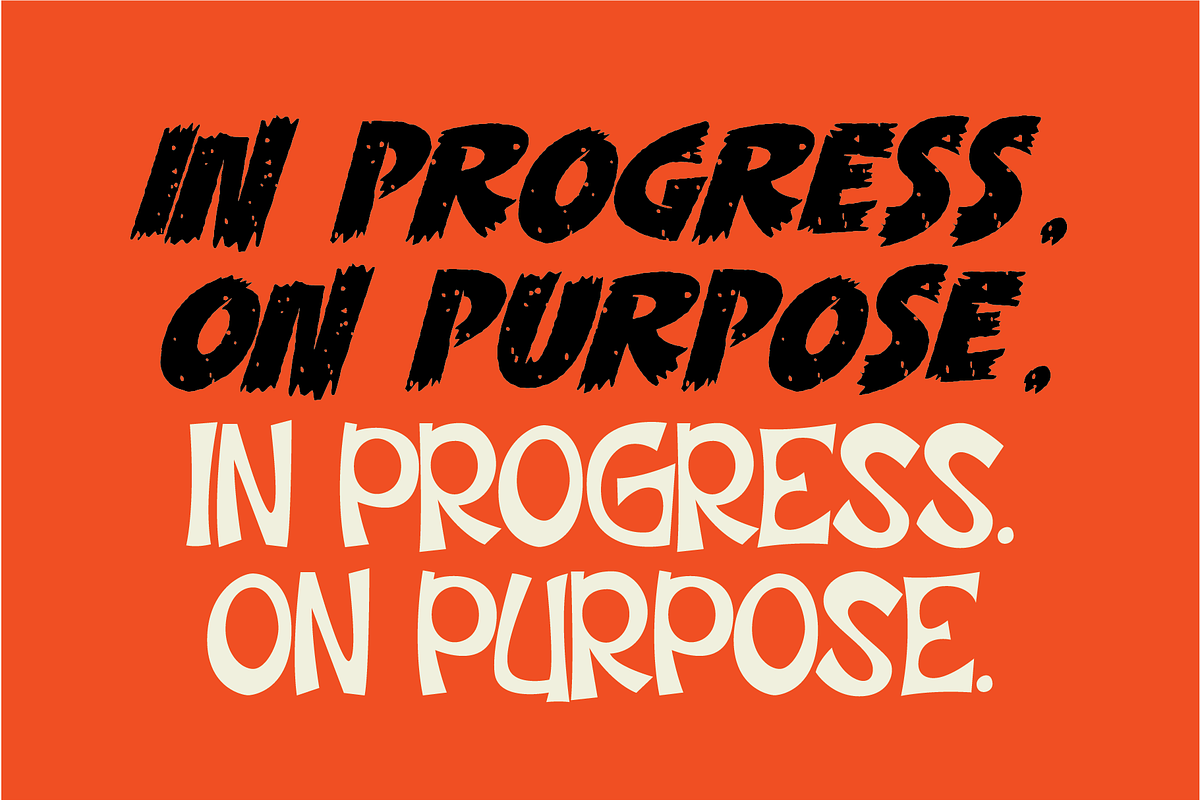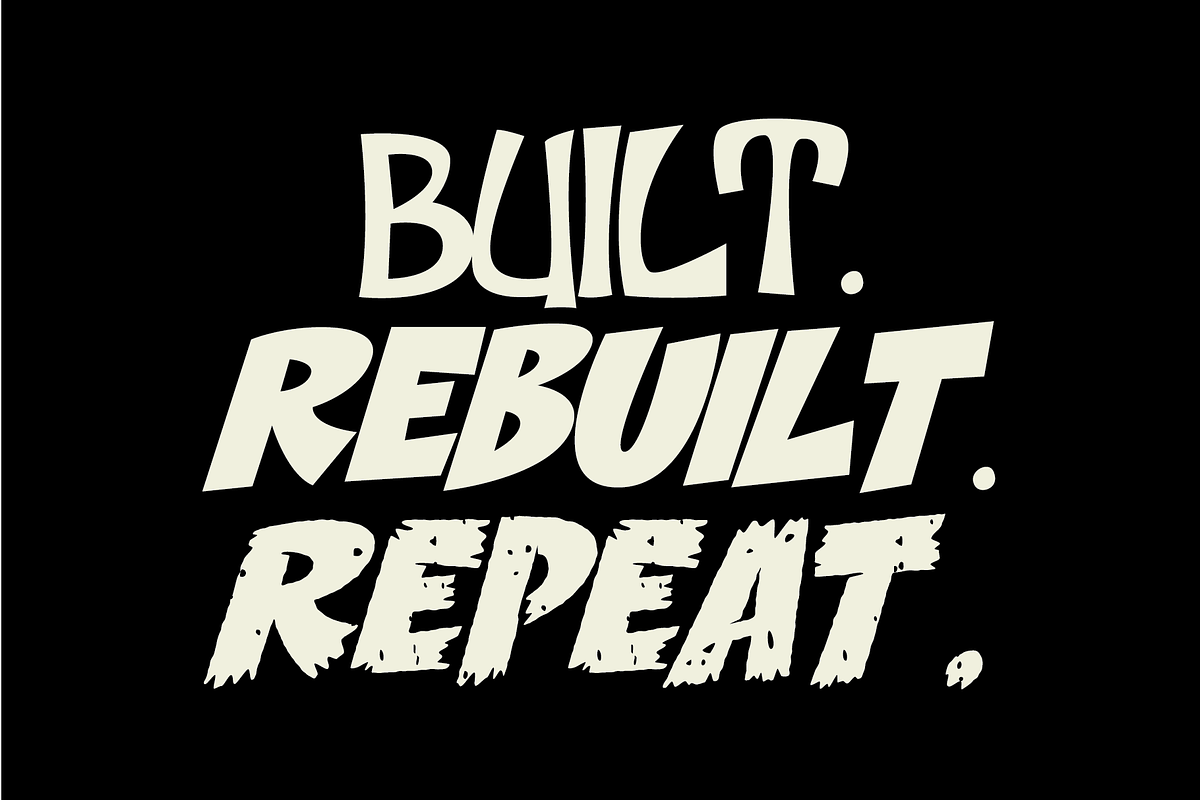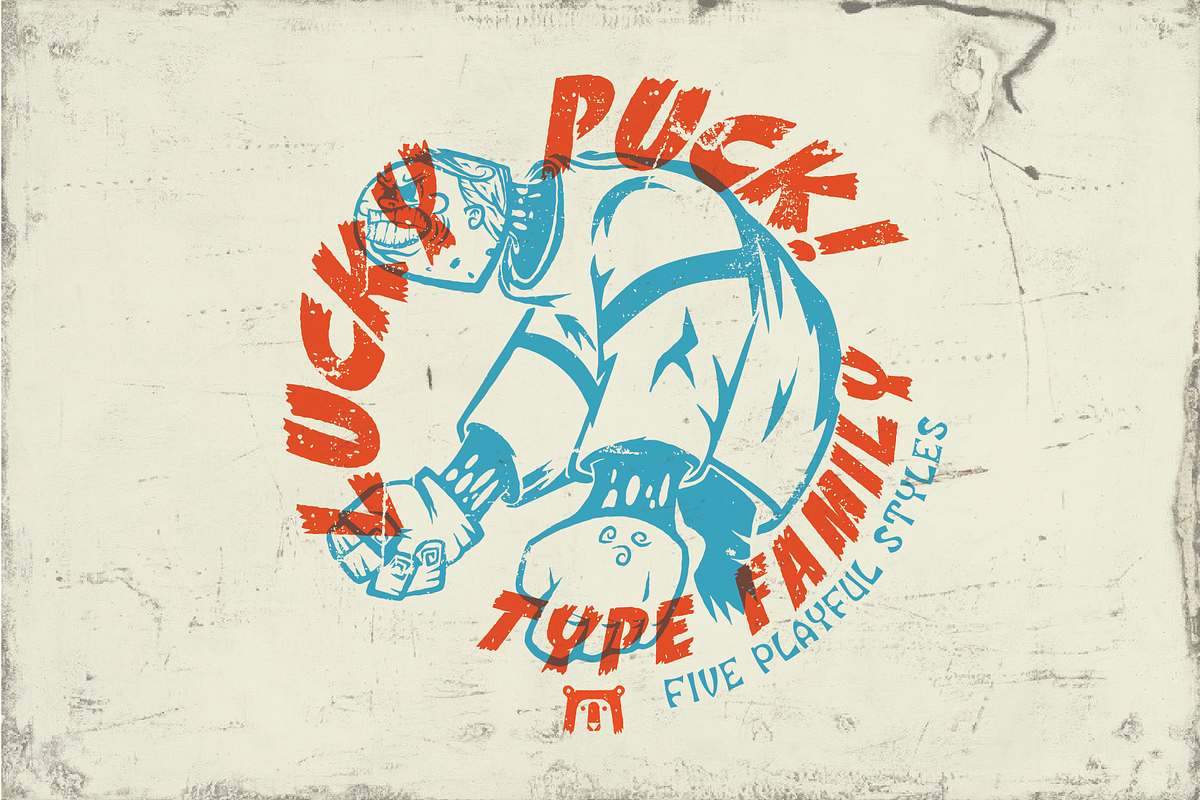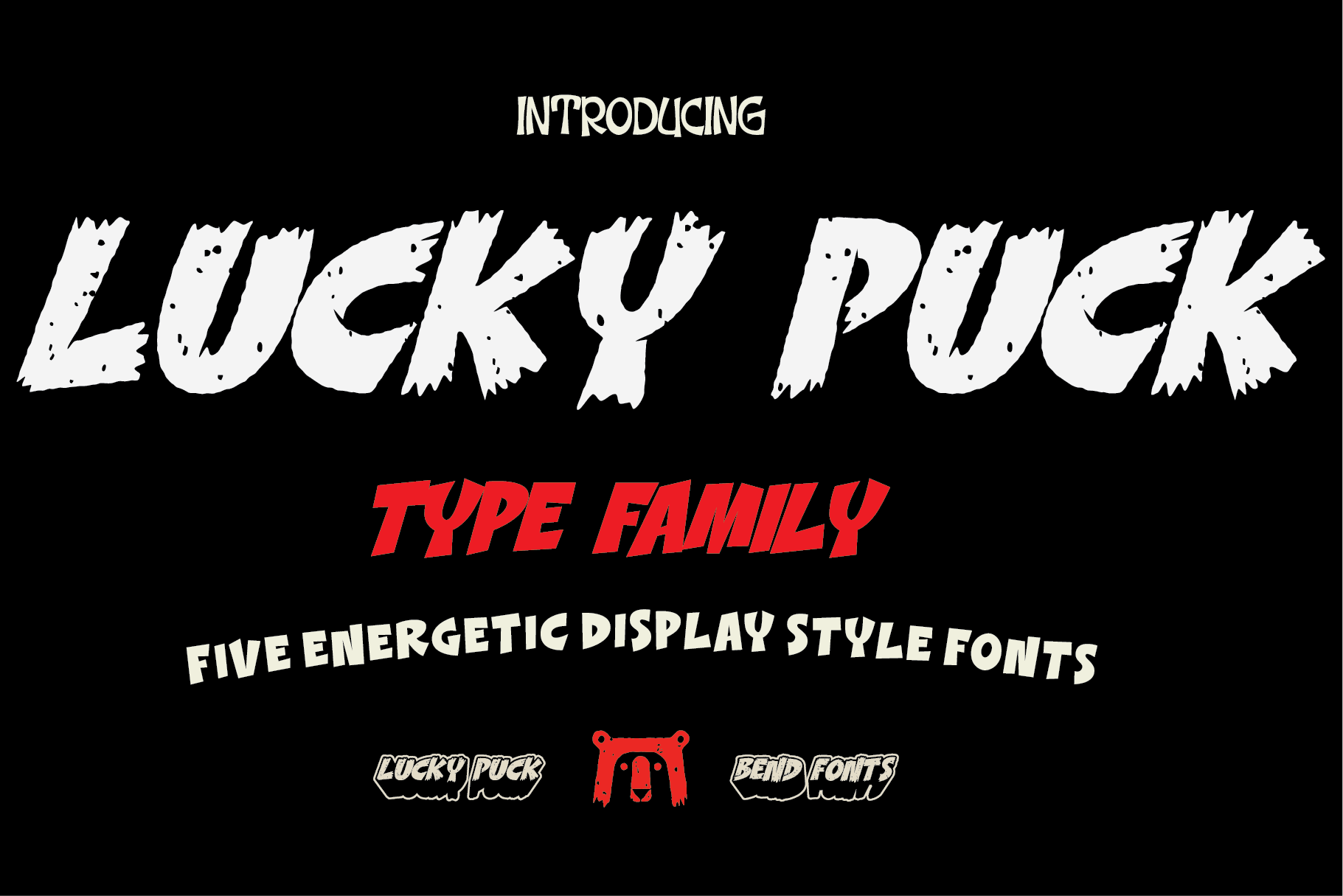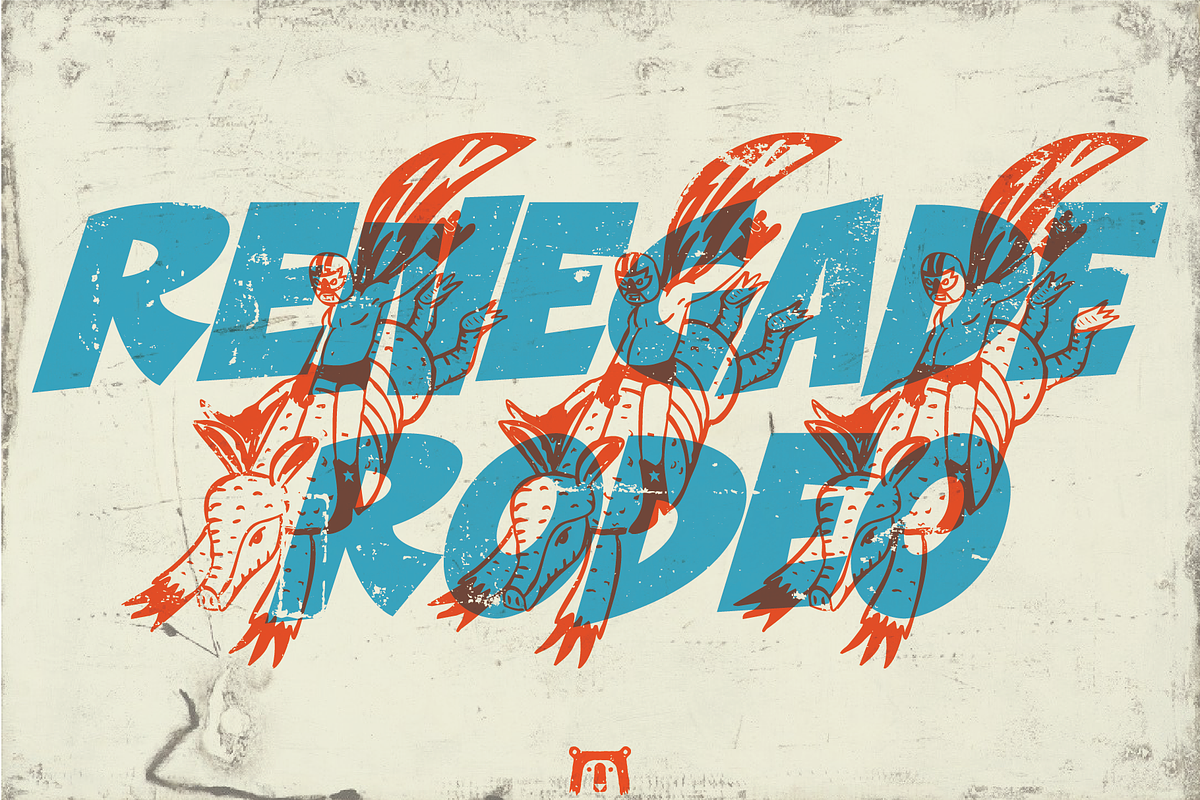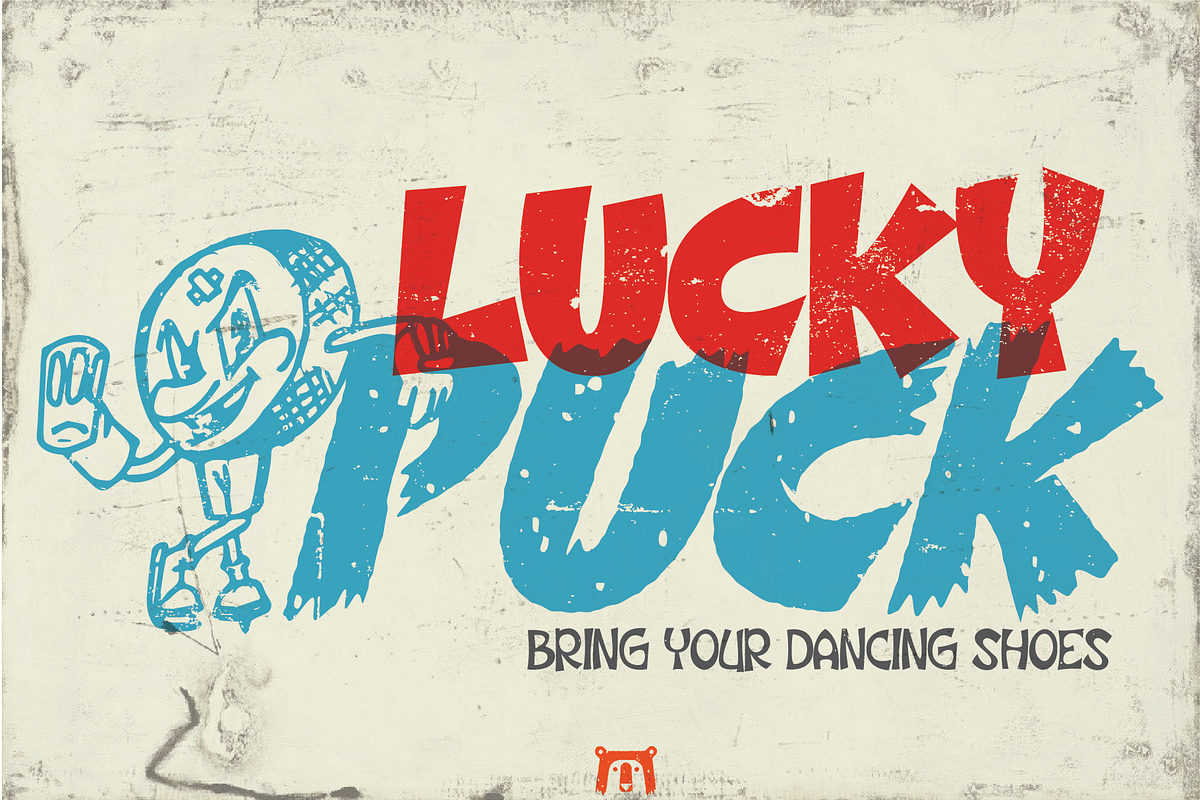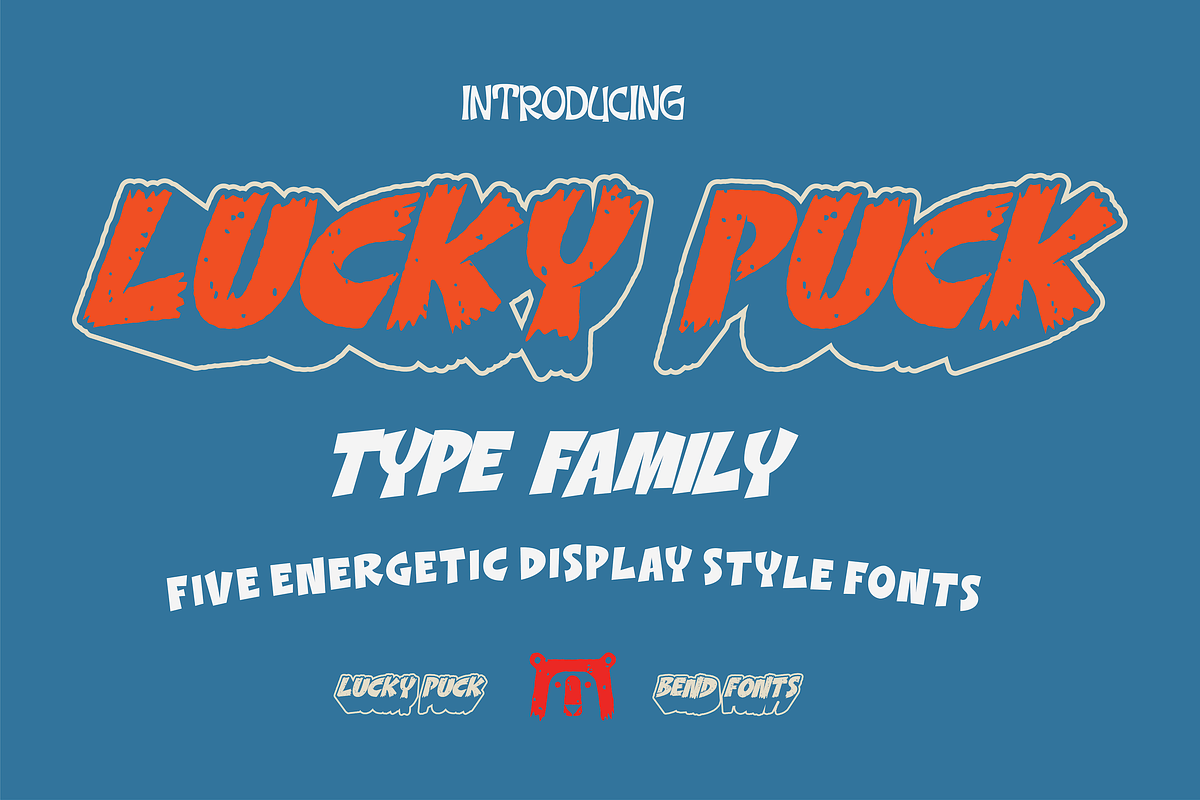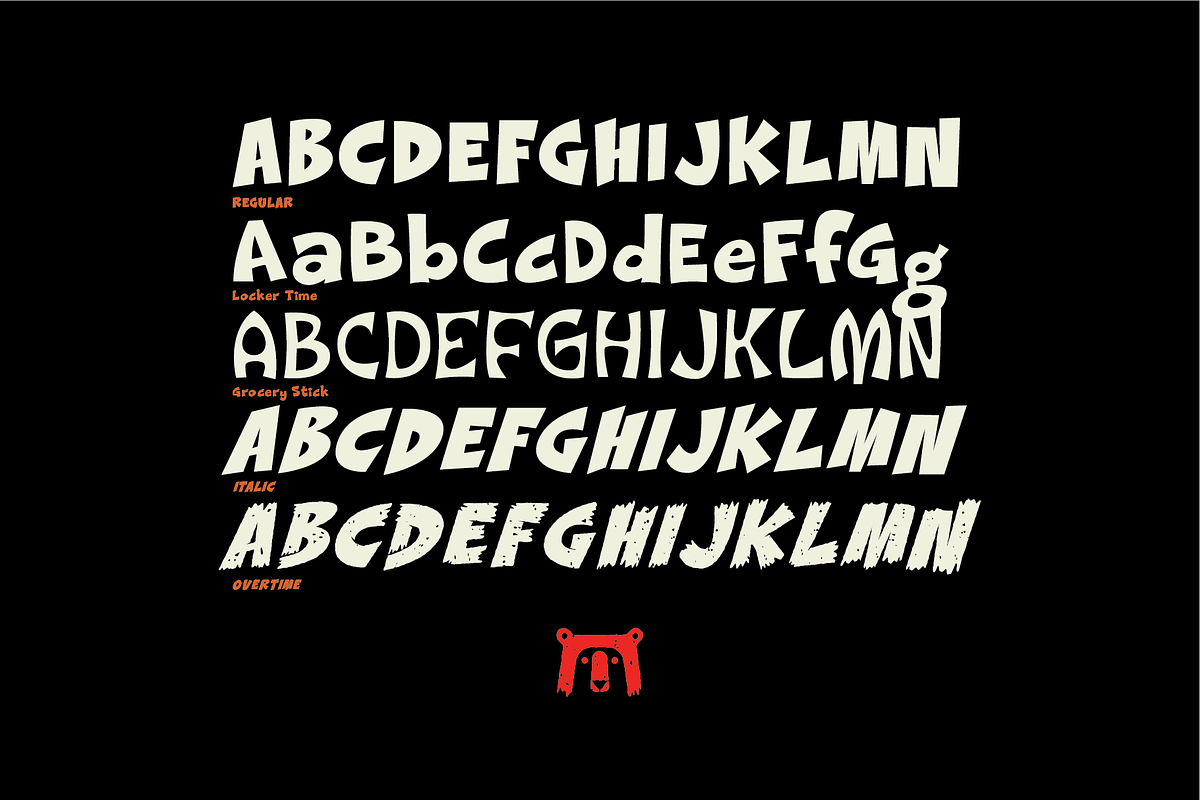
Lucky Puck | Playful Display Font
Lucky Puck is a bold, fun-filled display font built to bring energy and personality to your creative projects. Perfect for logos, apparel, sports graphics, posters, packaging, and standout branding, it delivers strong visual impact with playful character. Lucky Puck comes in five unique styles, giving you flexibility to mix, layer, and create dynamic headline treatments. Whether you're building a streetwear brand, designing team merch, or crafting eye-catching social content, this typeface brings movement and confidence to every layout. Designed by Bend Industries in Seabrook, Texas, Lucky Puck reflects our passion for expressive lettering and distinctive brand-driven typography.